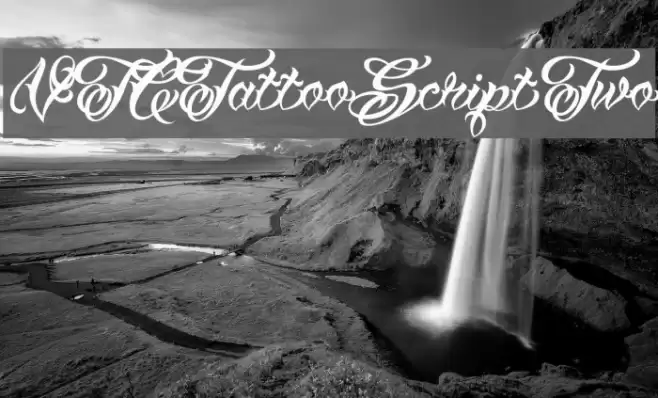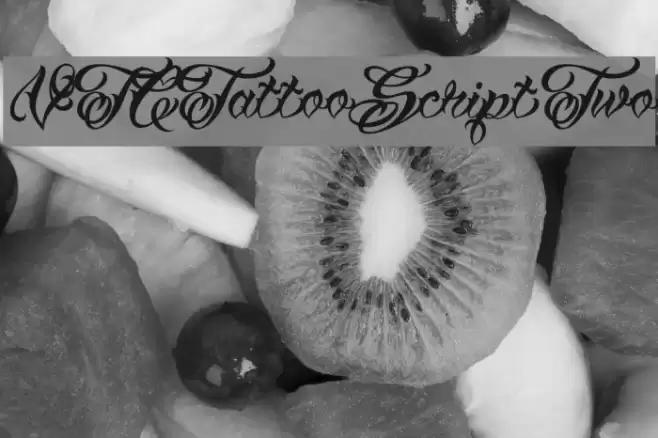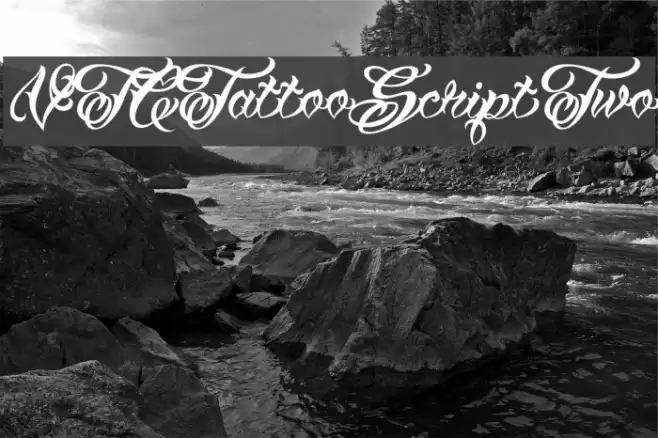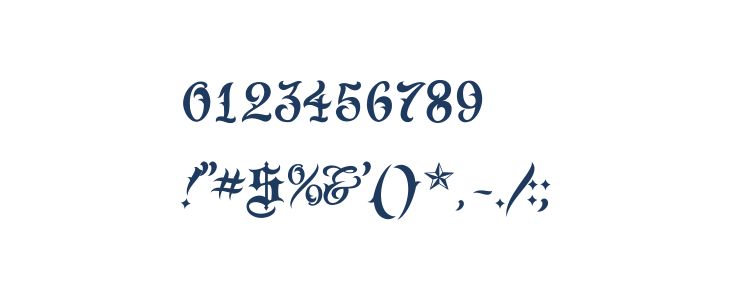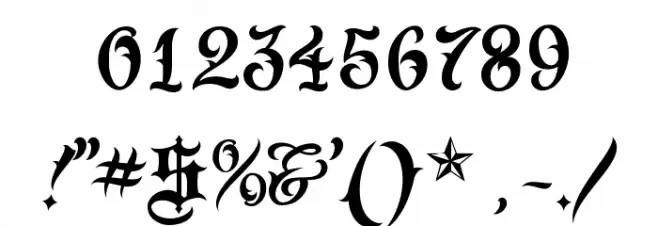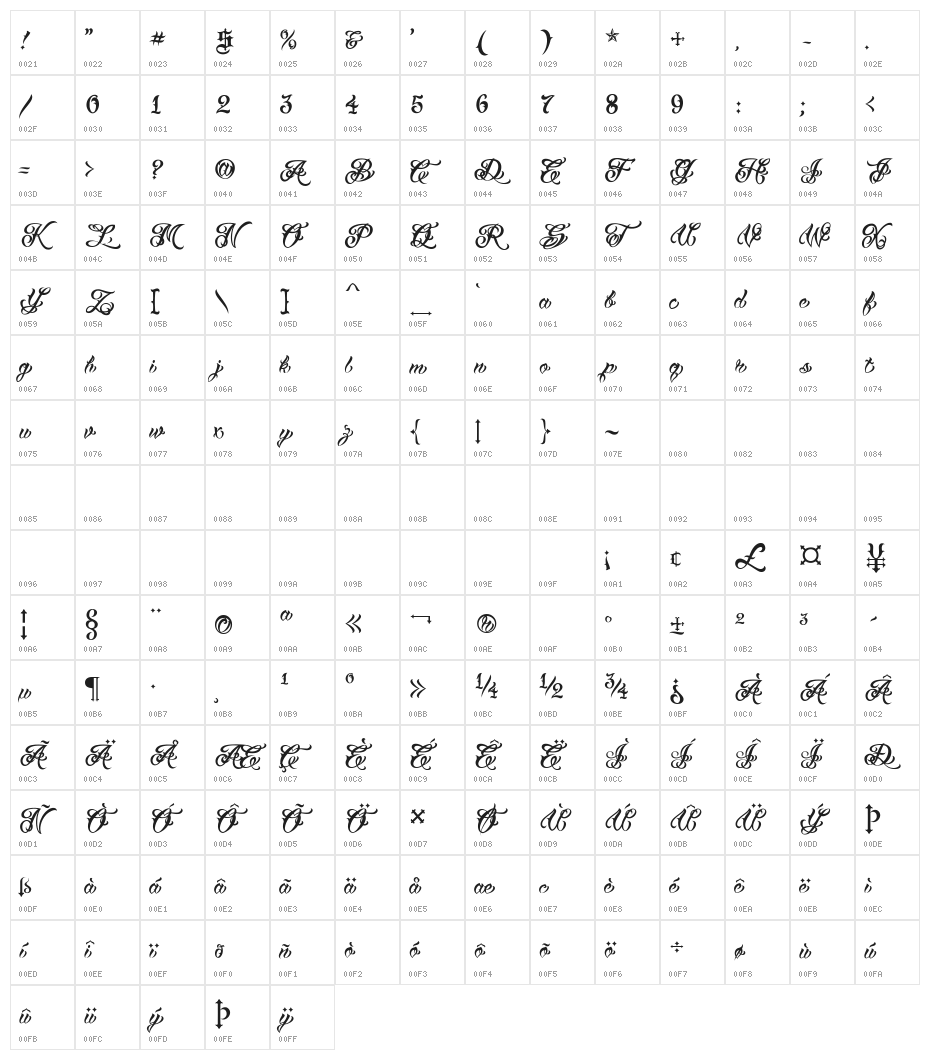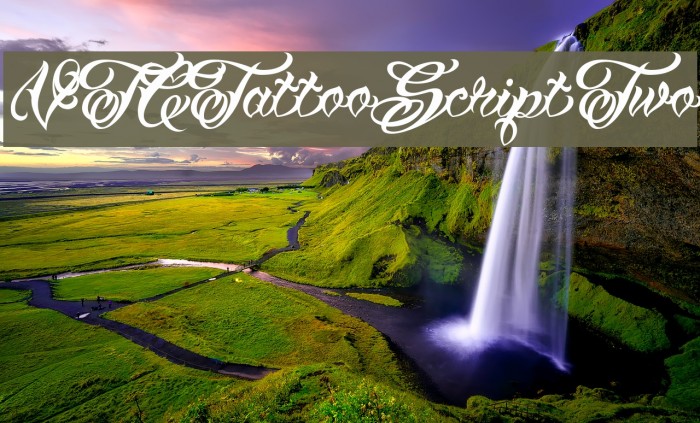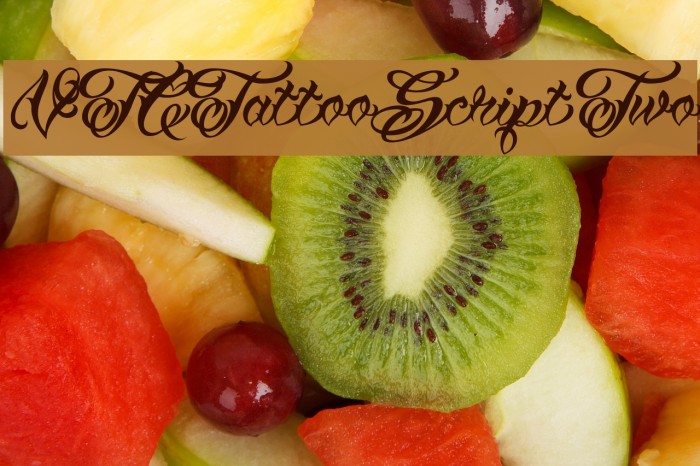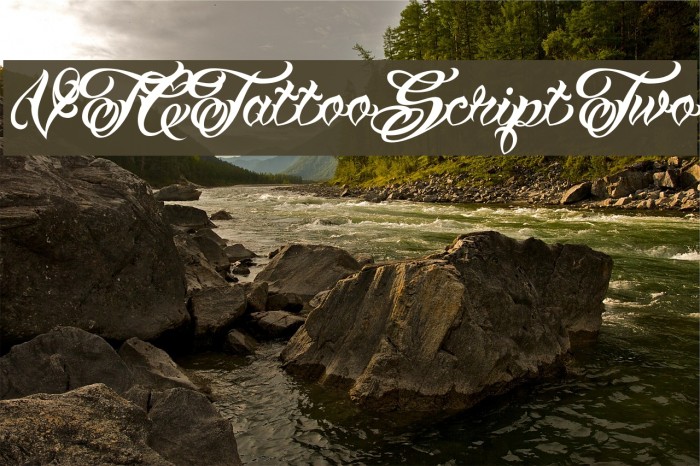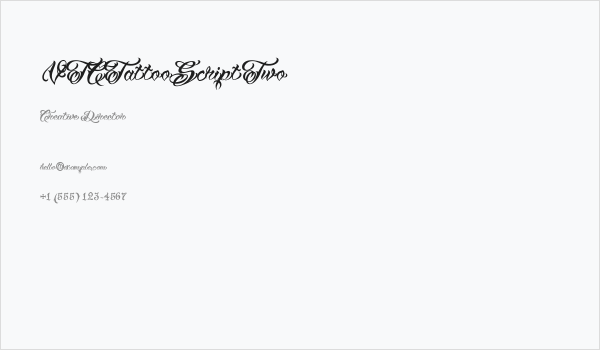
VTCTattooScriptTwo Font
VTCTattooScriptTwo Description
This font features an elaborate and ornate script style, characterized by its flowing, interconnected letters and intricate loops. The uppercase letters are particularly decorative, with exaggerated flourishes that give a sense of elegance and sophistication. The lowercase letters maintain a consistent style, offering a smooth and cohesive look. Numbers are bold and slightly less ornate, ensuring readability while still maintaining the overall aesthetic. Special characters are designed with similar embellishments, making them blend seamlessly with the rest of the font. The overall appearance is reminiscent of traditional calligraphy, making it suitable for projects that require a touch of classic elegance.
An ornate script font with intricate loops and flourishes, reminiscent of traditional calligraphy from Uncategorized fonts.
- Proposed Projects: Ideal for tattoo designs, wedding invitations, luxury branding, and decorative headings.
- Character Spacing: Tight
- Use Case: Logos, Headlines, Invitations